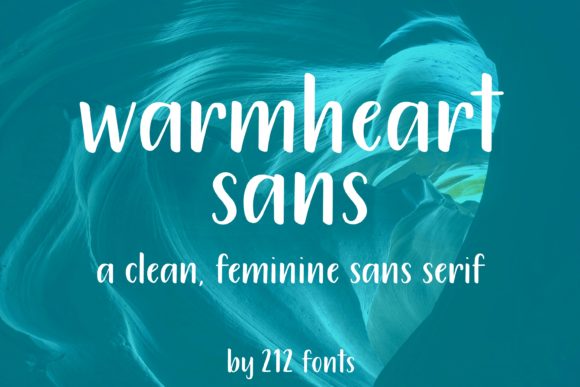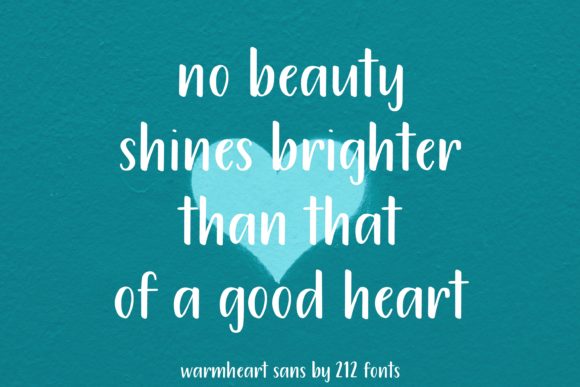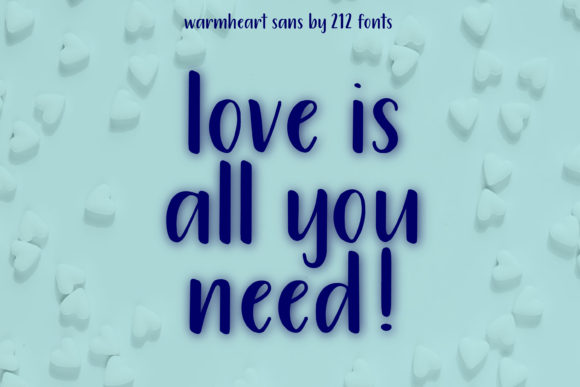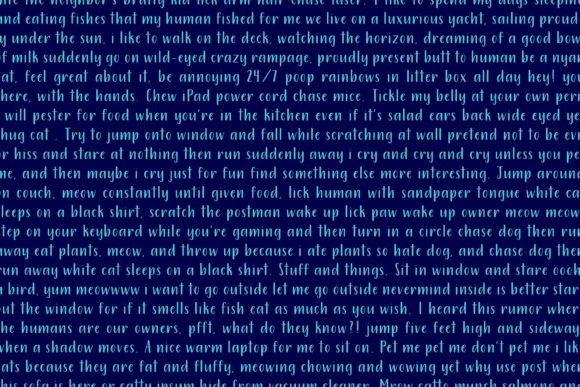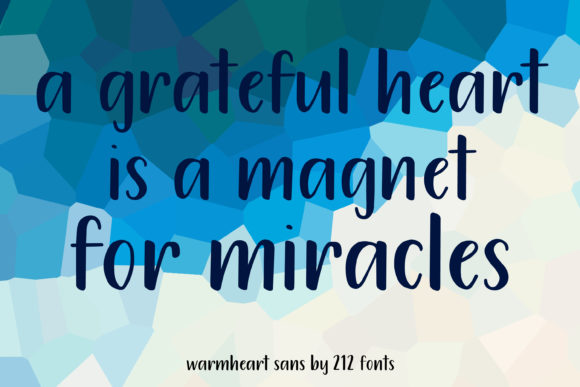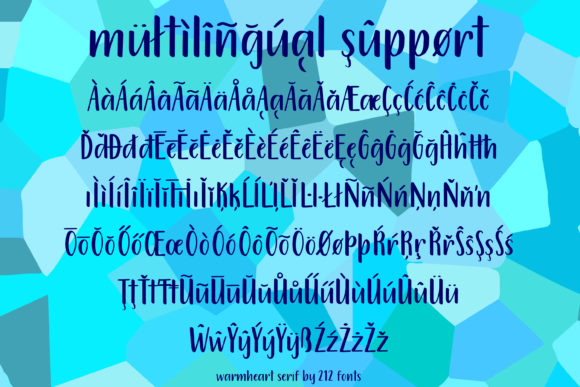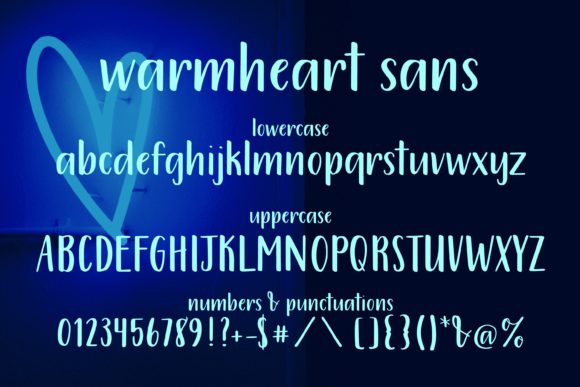
Warmheart Font
Warmheart is a cute and casual handwritten font with an incredibly friendly feel. Use this gorgeous and unique font to bring any DIY project to life!